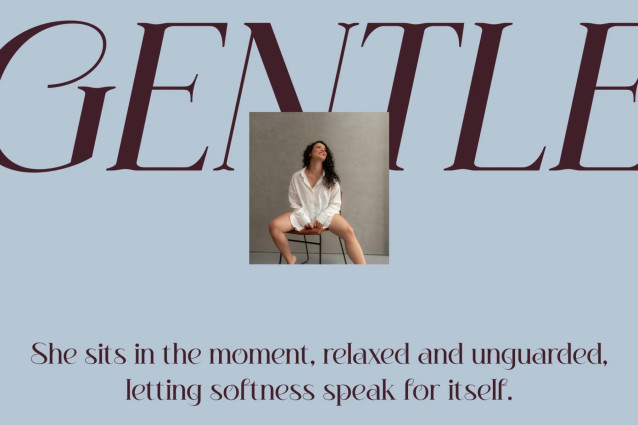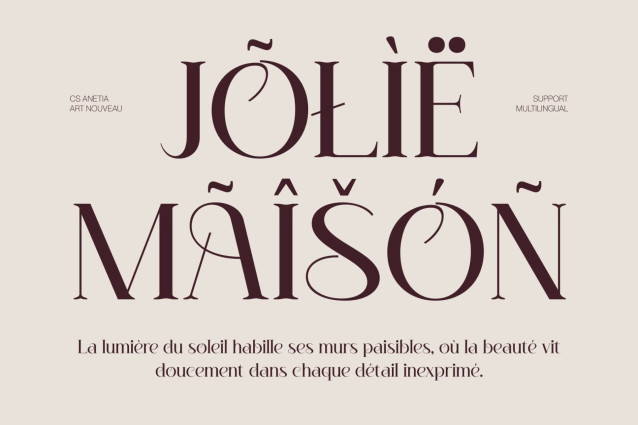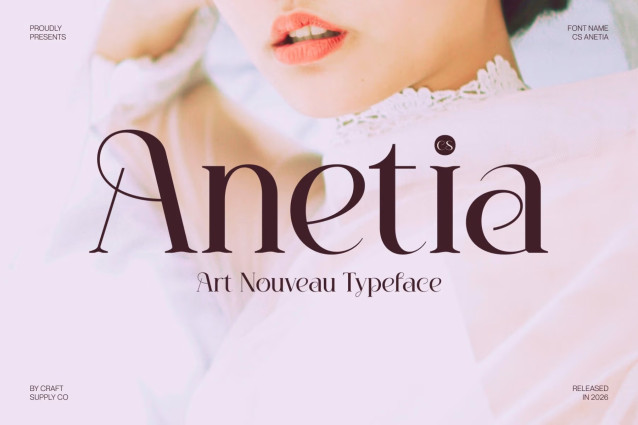
CS Anetia – Art Nouveau Serif with Flowing Elegance
Art Nouveau–Inspired Serif with Artistic Character
This is an Art Nouveau–inspired serif font designed to celebrate beauty through graceful movement and refined detail. Its elegant letterforms draw inspiration from classic decorative typography while maintaining a fresh, modern sensibility. The result is a typeface that feels artistic, sophisticated, and visually captivating.
Organic Curves with Elegant Lines
The defining feature of this font lies in its organic flowing curves and delicate line work. Each character moves with a natural rhythm, creating a sense of harmony and visual fluidity across text. These elegant shapes bring warmth and personality while preserving clarity and readability.
Refined Style with Sophisticated Appeal
This font balances decorative charm with a polished serif structure, giving it a refined and timeless presence. Its artistic character enhances visual storytelling and adds depth to creative compositions. The font communicates sophistication, beauty, and graceful confidence in every application.